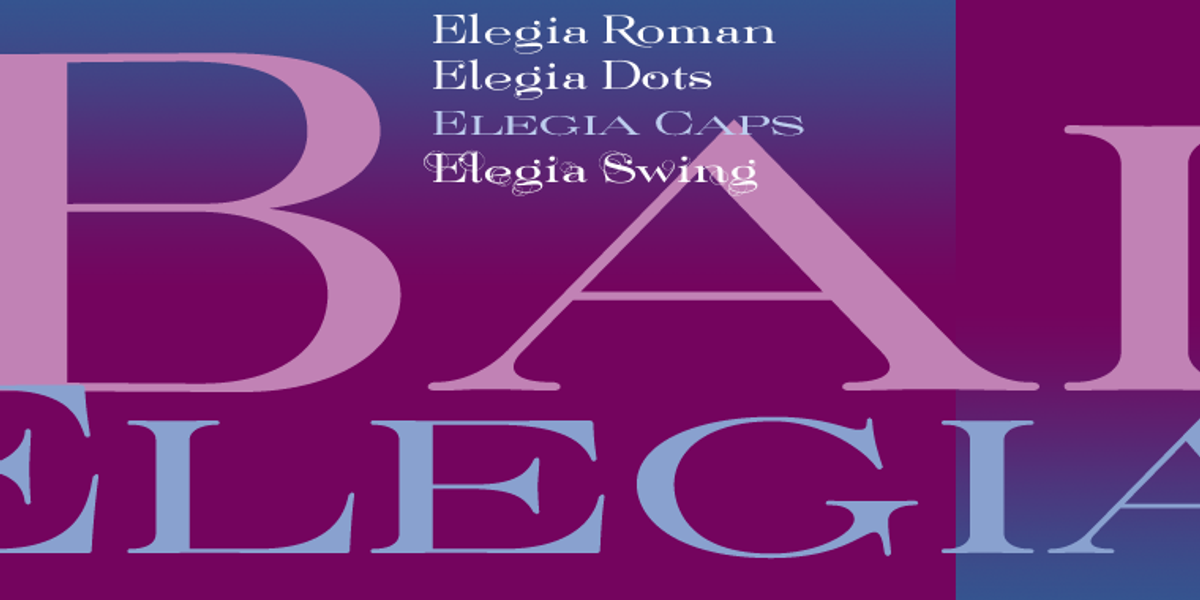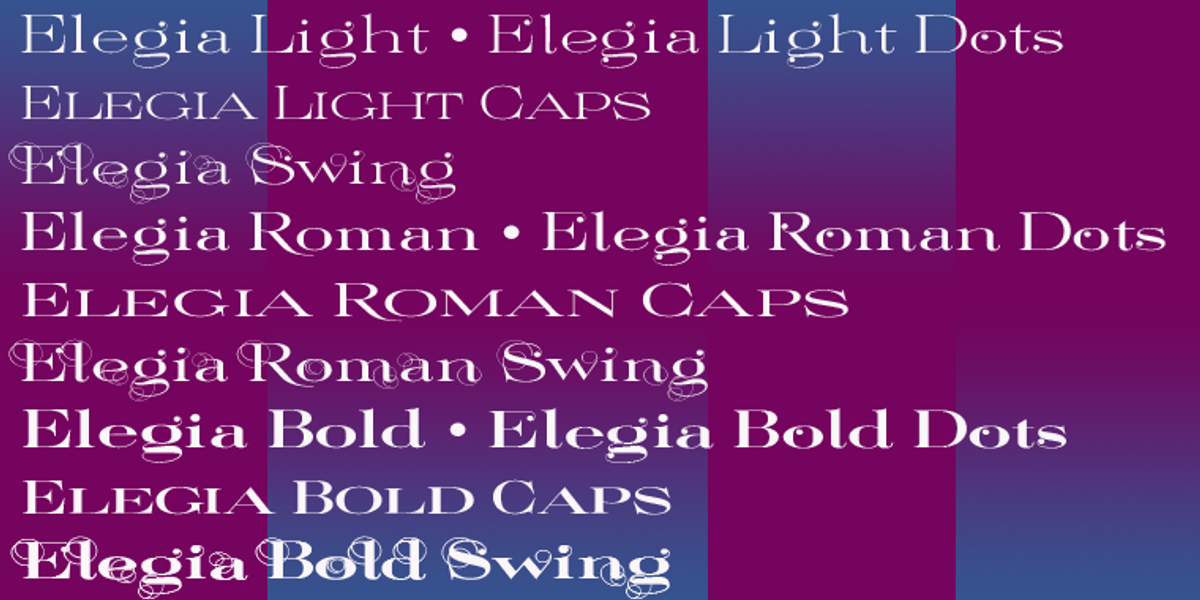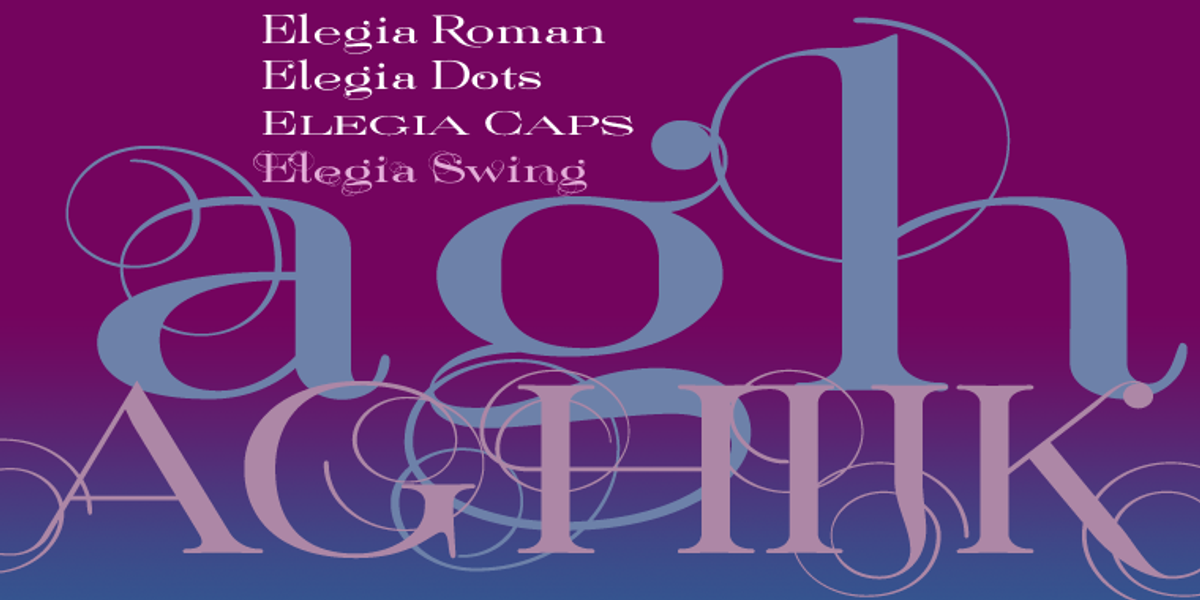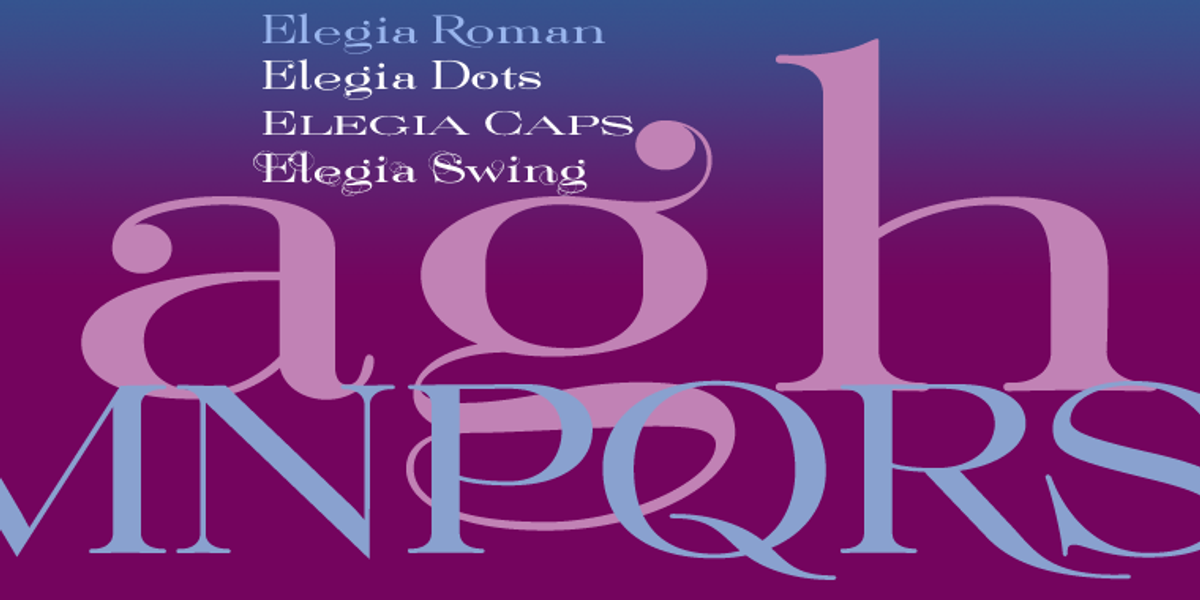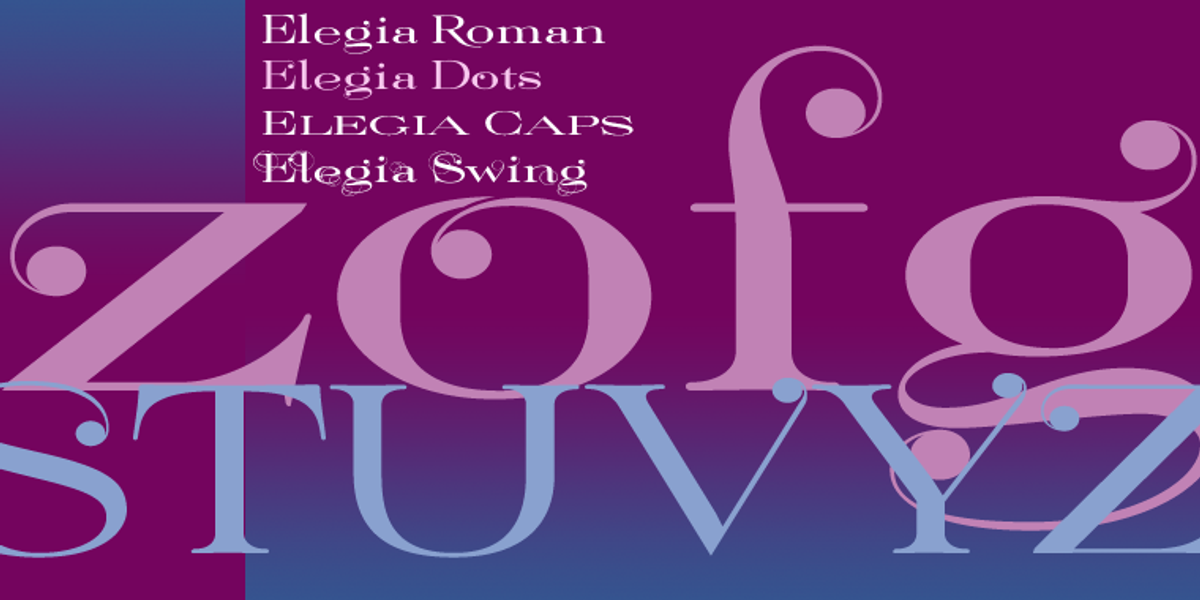
Elegia
Elegia is an elegant serif typeface designed by Gert Wiescher. It features swashes and ball terminals, giving it a classic and sophisticated look. The font includes multiple weights, allowing for versatility in design applications.